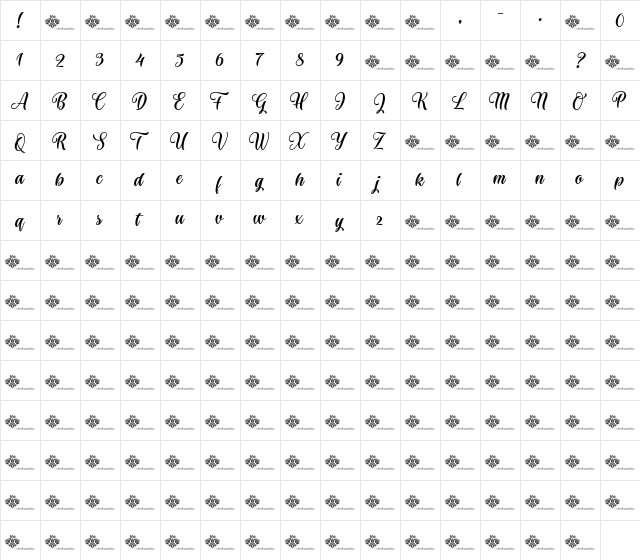
The Mumbai Sticker Demo Regular
Design Context for The Mumbai Sticker Demo Typeface
The Mumbai Sticker Demo is a composed and adaptable typeface that performs quietly and consistently across a wide range of design contexts.